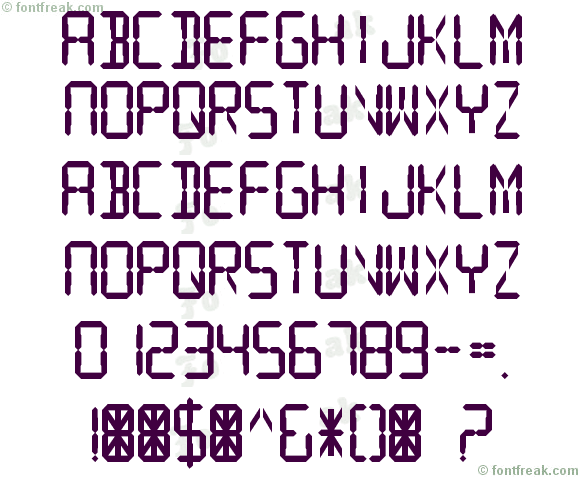
About Digital Readout
The Digital Readout font by Shyfonts Type Foundry is a striking display typeface that embodies a futuristic and technological aesthetic. This font falls into the category of digital typefaces, characterized by its bold, thick upright letters that echo the classic readout displays found on electronic devices. Created in 1999, this font features a condensed design with an expanded shape that enhances its readability while maintaining a modern edge. The stroke weight is uniform, offering a clean and cohesive appearance, while the lack of decorative elements keeps the focus on the innovative form of each character.
The Digital Readout font is particularly well-suited for a range of contemporary applications. Its unique style makes it an excellent choice for digital interfaces, tech-related branding, and promotional materials for science fiction events. Additionally, it can enhance the visual impact of movie posters, especially those in the sci-fi genre, and is ideal for use in video game design where a digital theme is prevalent. Graphic designers and content creators will find this typeface appealing for its versatility, enabling them to create eye-catching headlines and titles that capture attention.
What sets the Digital Readout font apart is its ability to merge functionality with a forward-thinking design, making it an excellent choice for anyone looking to convey a sense of innovation and modernity in their work. Its clean lines and bold presence ensure that it will leave a lasting impression on any audience.